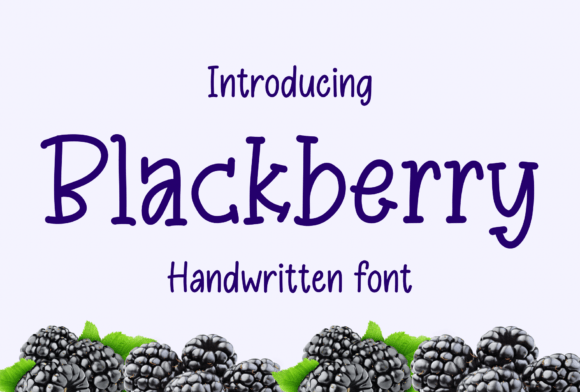
The Playful Charm of Blackberry Font: A Designer’s Delight
I’ll never forget the time I was working on a project for a children’s birthday party, and my client asked me to create a custom poster with a fun and playful vibe. I spent hours scouring font libraries, but nothing seemed quite right. That’s when I stumbled upon Blackberry Font, and it was love at first sight! ✨ With its quirky style and smooth curves, it brought the perfect amount of whimsy to the design. In this article, I’ll share my experience with Blackberry Font, its features, and how to make the most of it in your designs.
An Honest Review of Blackberry Font
- ✨ Playful and cute handwritten style that’s perfect for a variety of design projects
- ✅ Smooth curves and quirky details that add personality to any text
- 🎉 Versatile and easy to read, making it suitable for posters, greeting cards, product packaging, stickers, and social media content
While Blackberry Font is an excellent choice for many projects, there are a few things to keep in mind: 🤔
- ⚠️ It may not be the best choice for very formal or professional designs, as its playful style may not convey the right tone
- ⚠️ Some users may find the font a bit too ornate or busy for certain applications
The Story Behind Blackberry Font
Blackberry Font was designed by a team of creatives who wanted to create a font that would bring a smile to people’s faces. Inspired by the playful and carefree spirit of childhood, they crafted a font that’s both fun and functional. Whether you’re a designer, crafter, or creative hobbyist, Blackberry Font is sure to become a favorite in your collection.
Q: What type of designs is Blackberry Font best suited for?
A: Blackberry Font is perfect for posters, greeting cards, product packaging, stickers, and social media content that requires a playful and friendly touch.
Q: Is Blackberry Font available in different languages?
A: Yes, Blackberry Font supports multiple languages, but the availability of certain characters and glyphs may vary.